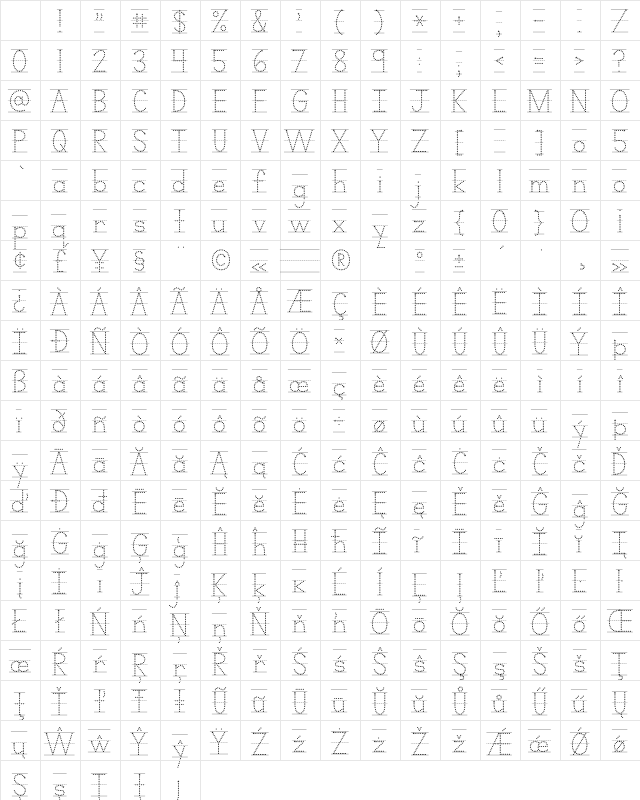
Complete KG Teacher Created Star Lined 2 Regular glyph index. Displaying only characters natively supported by KG Teacher Created Star Lined 2 Regular font.
KG Teacher Created Star Lined 2 is a composed and adaptable typeface that performs quietly and consistently across a wide range of design contexts.